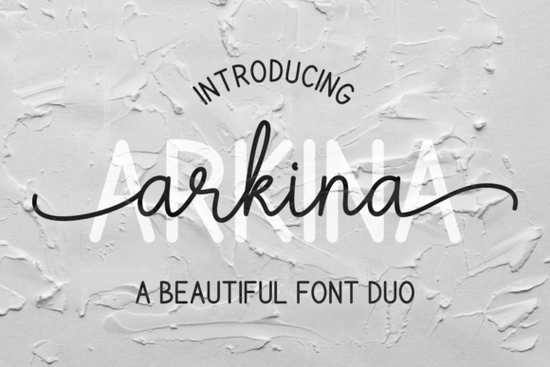
Finding a font duo that actually works well together can take hours of trial and error. The Arkina Duo Font solves that problem by pairing a flowing script style with a clean sans serif in one package. Both fonts share the same design personality, so they look intentional and balanced when used side by side. Whether you're designing wedding invitations, social media graphics, or product labels, this duo gives you a polished look without the guesswork of mixing fonts from different families.
What Makes a Font Duo Different From Buying Fonts Separately?
A font duo is two fonts designed to complement each other from the start. The script and sans serif styles in the Arkina font collection share consistent proportions and visual rhythm. This means you don't have to worry about one font overpowering the other or clashing in weight and spacing.
When you buy fonts individually, you often spend time testing different combinations. Some pairings look awkward too similar, too different, or just "off." A well-made duo eliminates that friction. The designer has already done the work of making sure the two styles play nicely together.
What Types of Projects Work Best With the Arkina Duo?
The elegant, slightly decorative feel of this font pair makes it a strong choice for:
- Wedding invitations and event stationery The script style adds a romantic, hand-lettered touch while the sans serif keeps details readable.
- Branding and logo design Mixing the two styles creates visual hierarchy without needing a third font.
- Social media posts and quote graphics Use the script for headlines and the sans serif for supporting text.
- Print-on-demand products T-shirts, mugs, tote bags, and greeting cards all benefit from this kind of pairing.
- Website headers and hero sections A script headline with a clean sans serif subtitle looks professional and inviting.
How Does Arkina Compare to Other Script Font Duos?
Tips for Pairing the Script and Sans Serif Together
Getting the most out of a font duo is about more than just using both fonts in the same design. Here are a few practical tips:
- Use the script sparingly. Reserve it for headlines, names, or short phrases. Long blocks of script text are hard to read.
- Let the sans serif do the heavy lifting. Body text, dates, addresses, and details should use the cleaner style.
- Play with size contrast. A large script headline paired with a smaller sans serif subheading creates natural visual hierarchy.
- Stick to two fonts max. Adding a third font usually makes the design feel cluttered. The duo is designed to work as a complete pair.
- Check readability at different sizes. Test your design on both a phone screen and a printed product to make sure everything holds up.
Quick Checklist Before You Buy
- Think about your specific project. Does it need an elegant, decorative feel?
- Compare the Arkina duo with alternatives like the Athaya script font or Happy Saturday script font to see which style fits your brand best.
- Pair the script and sans serif with simple colors and clean layouts to let the typography stand out.
Starting with a well-matched font duo saves time, reduces design headaches, and gives your work a more polished finish from the very beginning.